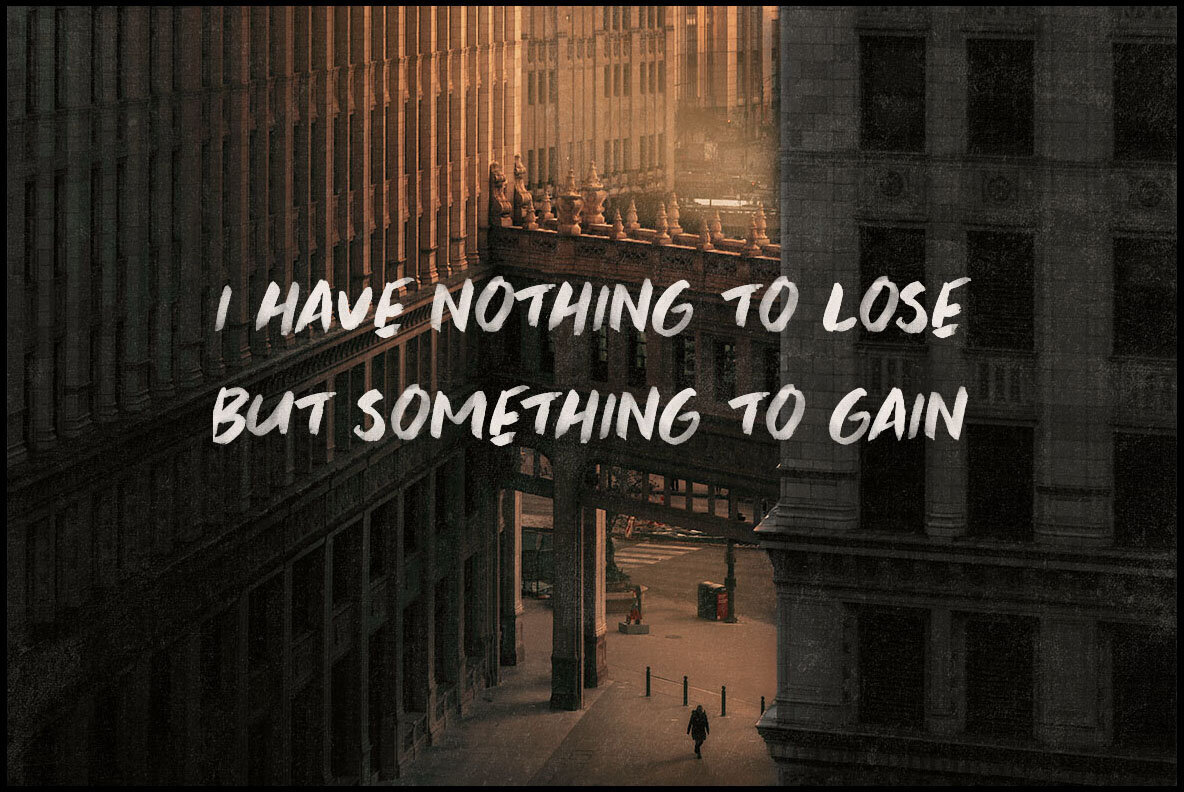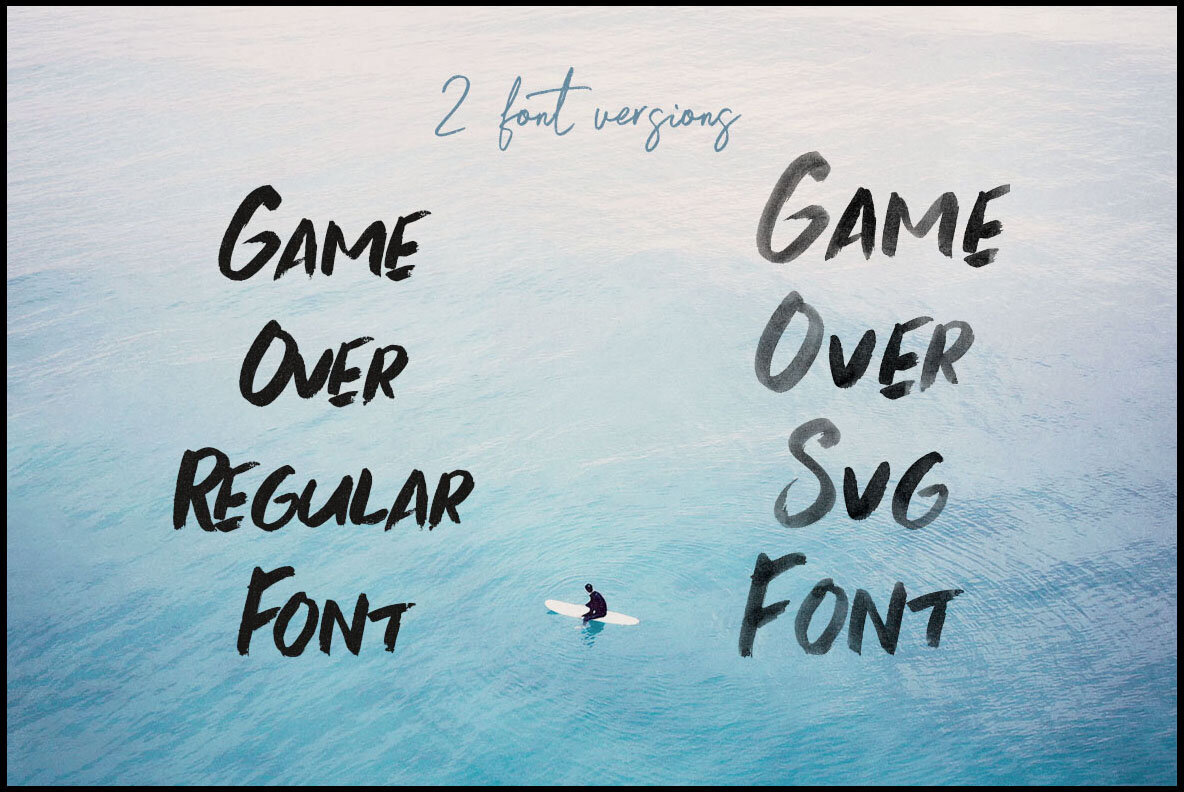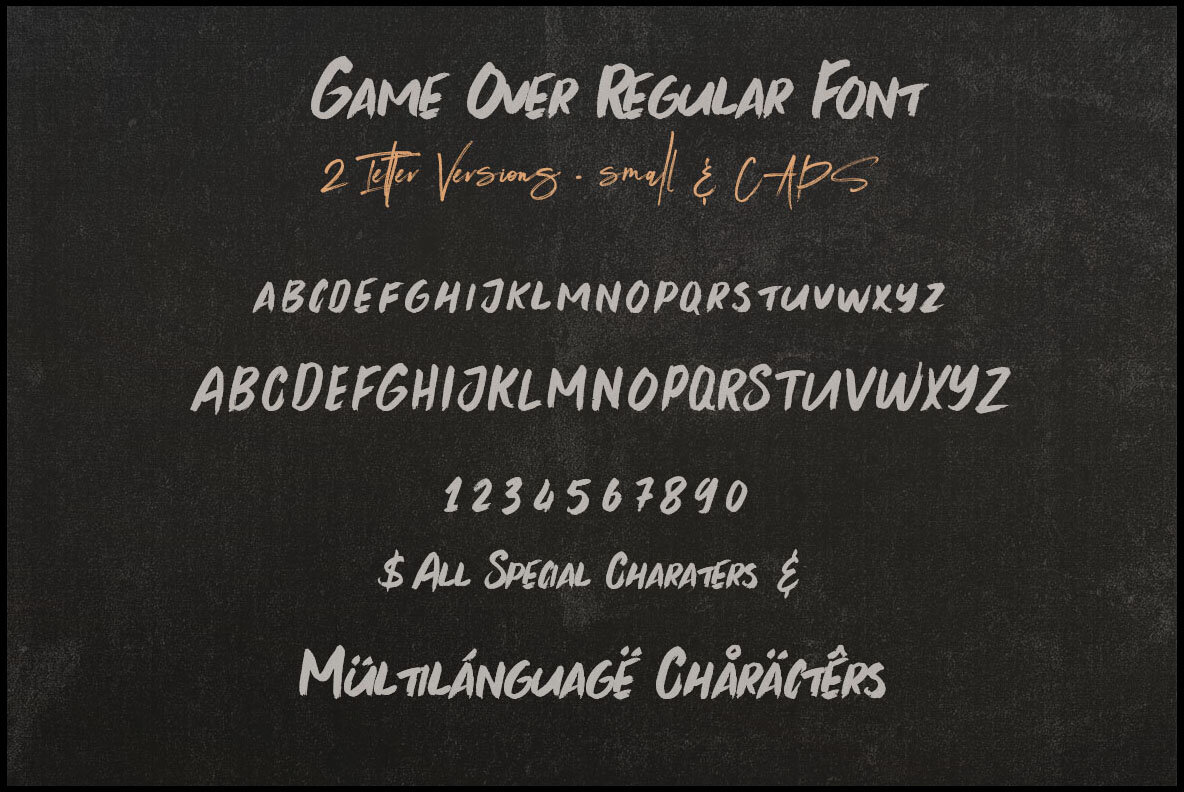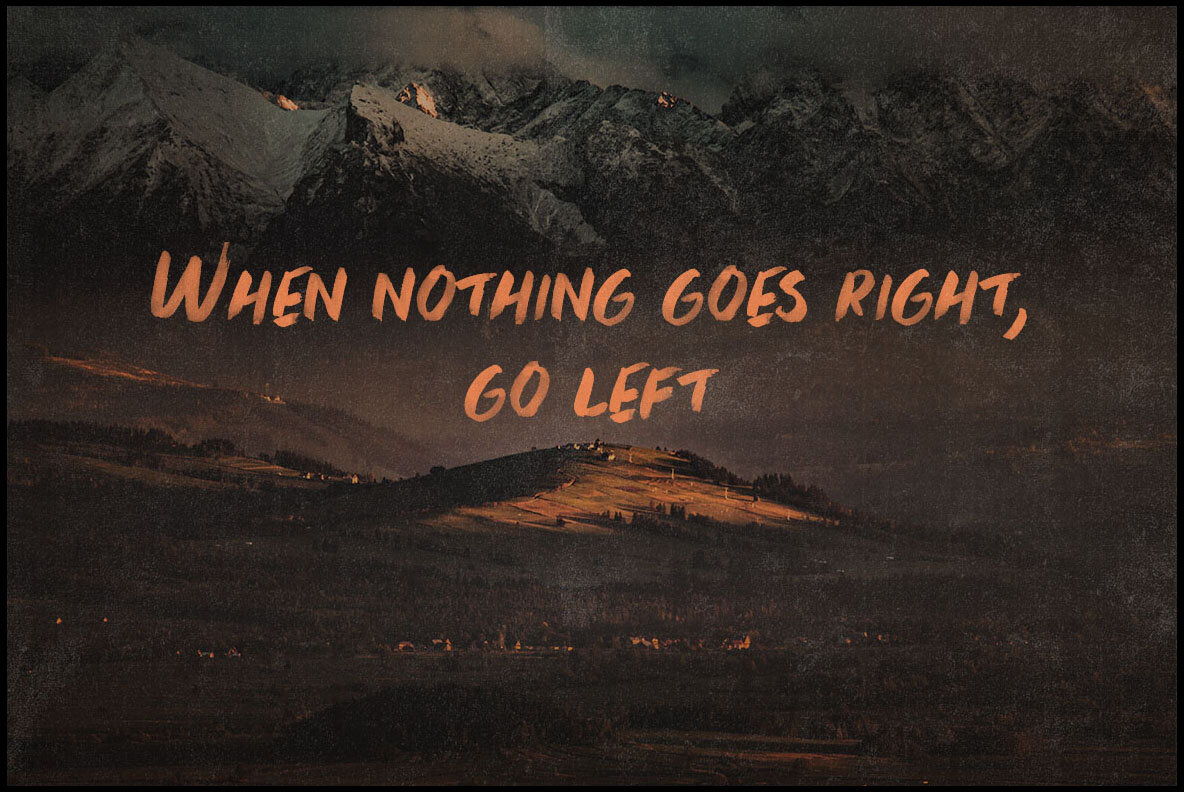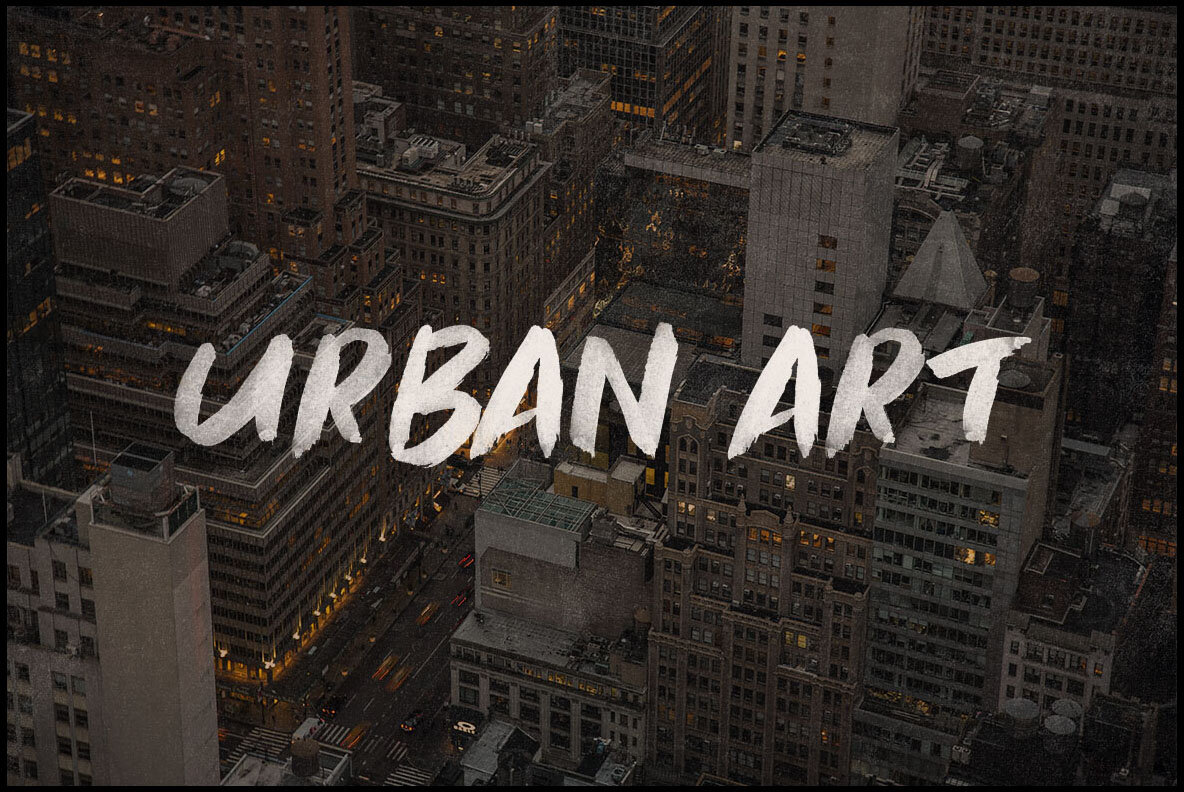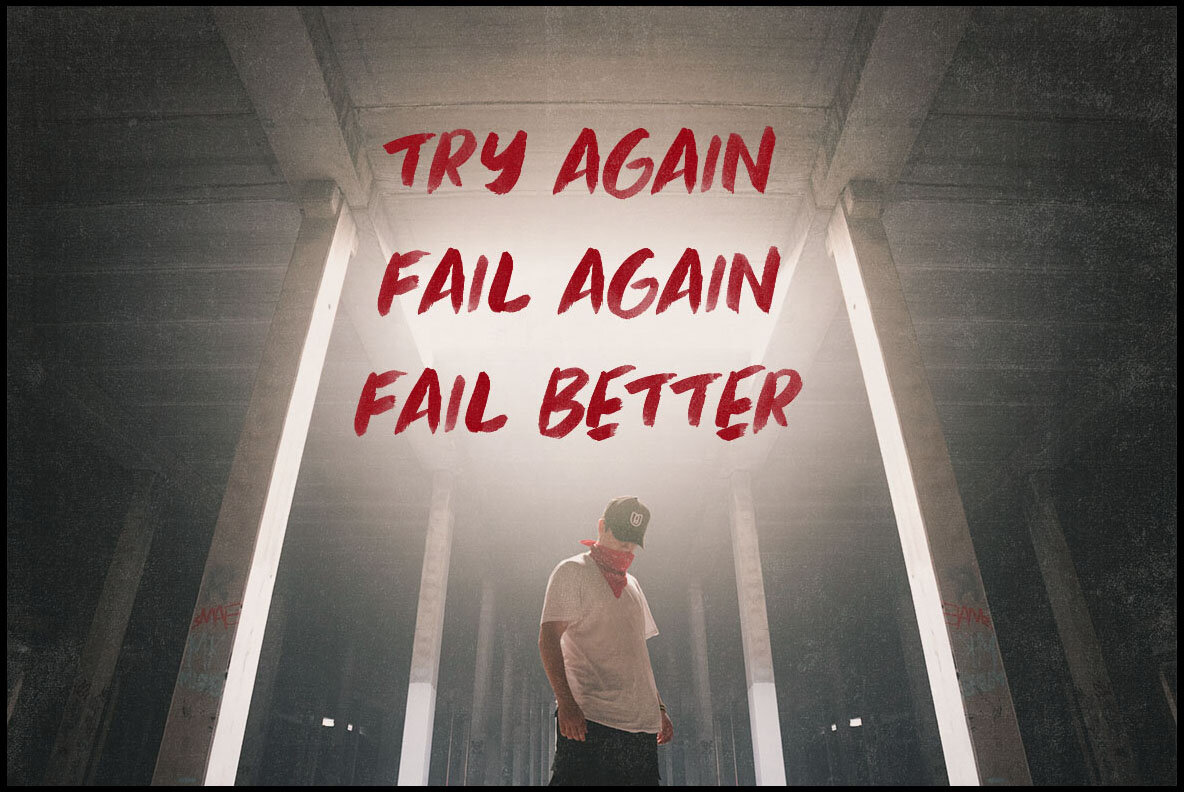
Game Over Brush SVG Font
Game Over Regular
Game Over SVG
Game Over Brush SVG is a dynamic brush or grunge-style sans display font, ideal for adding an artistic edge to your projects. It is perfectly suited for grunge and artistic themes, offering a unique touch to your design portfolio.Game Over Brush SVG: Bold Brush Style for Modern Projects